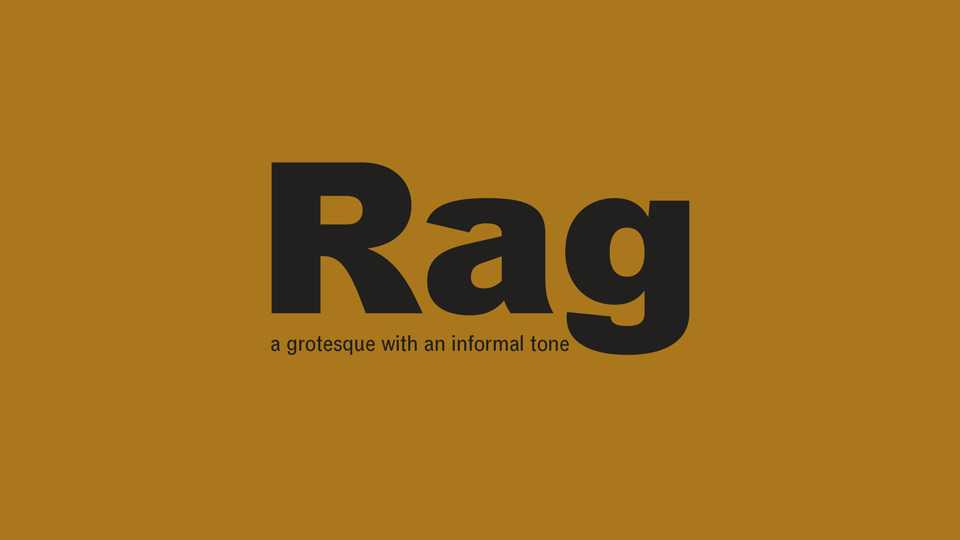
Download Rag font, a grotesque typeface with an informal tone, drawn to fill a need for something broadly useful, unpretentious, vulgar, a little bit crude, and free.
Designer: Dennis Grauel